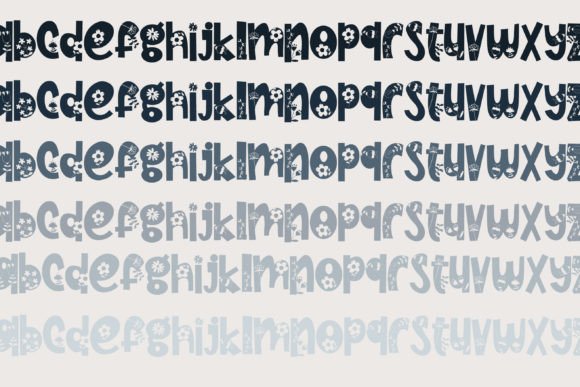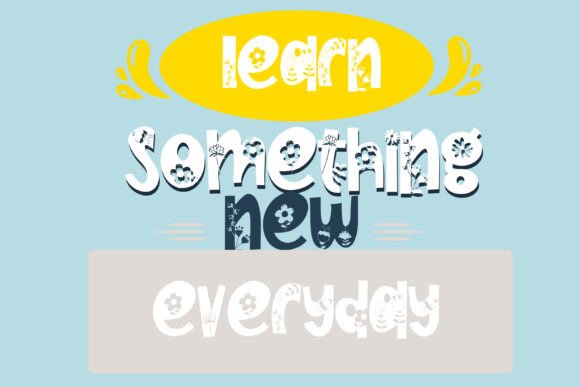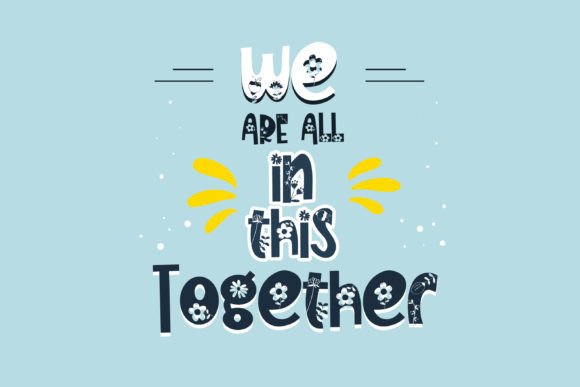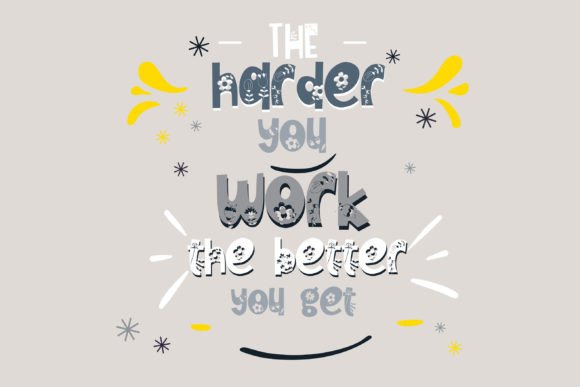
The Whimsical World of Flowerful Font: A Designer’s Delight
I’ll never forget the time I was working on a wedding invitation project, and my client asked for a font that was “whimsical, yet elegant.” I scoured the internet, trying out font after font, but nothing seemed quite right. That was until I stumbled upon Flowerful Font, a hand-written whimsical font with no descenders and adorable florals. It was love at first sight! 💕
An Honest Review of Flowerful Font
- ✨ Unique and playful design that’s perfect for creative projects
- ✅ No descenders make it easy to use for headlines and titles
- 💐 Adorable florals add a touch of whimsy to any design
- 🎨 Highly versatile and can be used for both formal and informal projects
While Flowerful Font is a stunning font, there are a few things to keep in mind:
- ⚠️ Limited character set, so it may not be suitable for body text or long paragraphs
- 🤔 Can be a bit tricky to pair with other fonts, so experimentation is key
The Story Behind Flowerful Font
Flowerful Font was designed by a talented font designer who wanted to create a font that captured the whimsy and playfulness of handwritten writing. Inspired by the beauty of flowers and the elegance of script fonts, Flowerful Font was born. With its unique design and adorable florals, it’s no wonder it’s become a favorite among designers and crafters.
| Font Name | Flowerful Font |
| Author | Illustration Ink |
Q: What is Flowerful Font?
A: Flowerful Font is a hand-written whimsical font with no descenders and features cute florals.
Q: What can I use Flowerful Font for?
A: Flowerful Font is highly versatile and can be used for a variety of creative projects, including invitations, greeting cards, and more.
Q: Is Flowerful Font easy to pair with other fonts?
A: While Flowerful Font can be a bit tricky to pair with other fonts, experimentation is key. Try pairing it with simple sans-serifs or elegant scripts for a beautiful contrast.